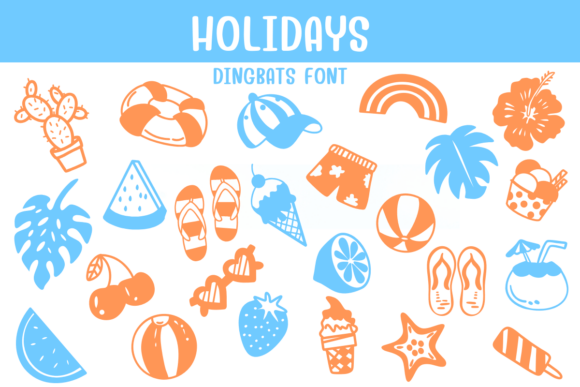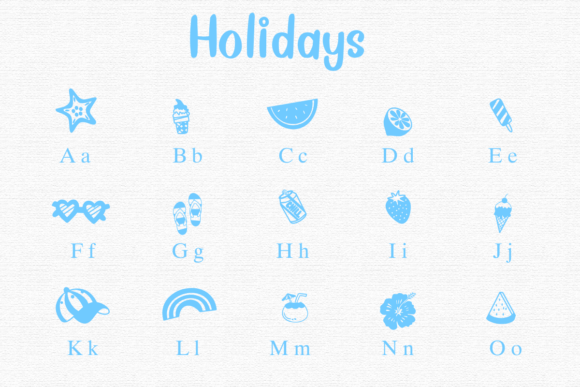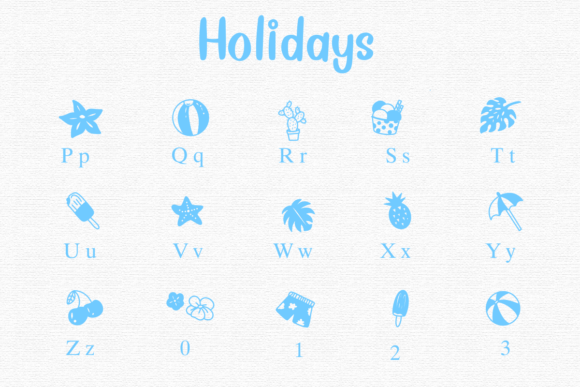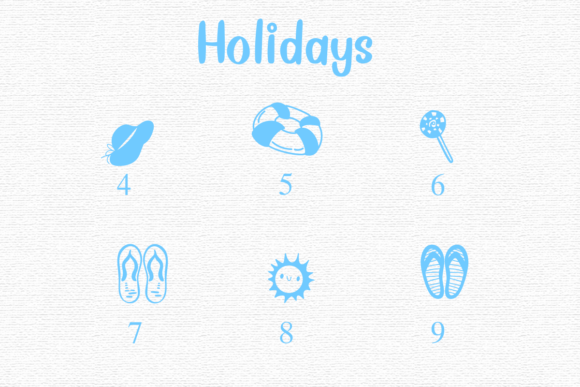
Holidays Font
About the Holidays Font
Step up your design game with Holidays Font, a font that exudes confidence and style. Holidays is a fun and vibrant dingbat font filled with beach essentials like sunglasses, flip-flops, ice cream, and beach balls. Perfect for summer party invitations, travel branding, seasonal merchandise, and tropical prints, this font brings a sunny and cheerful touch to your work.
Holidays Font is best suited for headlines, short display text, and branding applications where a playful, summery vibe is desired. It excels in projects like invitations, social media graphics, and packaging for products related to travel, leisure, or summer-themed goods. Avoid using it for body copy or long paragraphs; its playful nature and irregular character widths make it unsuitable for extended reading.
Consider pairing Holidays with a clean sans-serif like Open Sans for a balanced contrast, or a slightly more playful script font such as Pacifico for a heightened sense of whimsy in certain applications. A geometric sans-serif could also work well for a modern, clean feel, providing a structured counterpoint to the font’s casual nature.
The overall personality of Holidays is undeniably cheerful and lighthearted, projecting a carefree summer energy ideal for brands focused on fun and relaxation. Its informal nature makes it unsuitable for projects requiring a formal or serious tone.
Holidays Font Usage Examples
Holidays Font Example